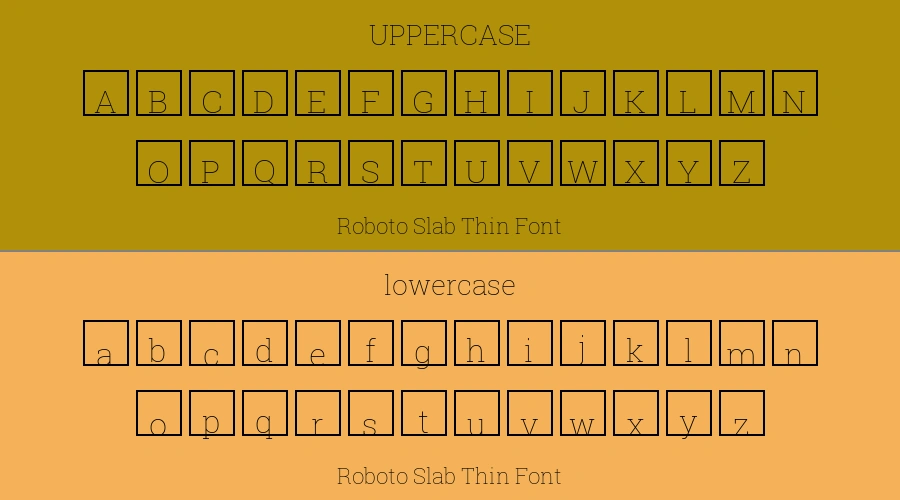
About Roboto Slab Thin Font
Designed with precision, Roboto Slab Thin Font merges teardrop terminals with technical precision in every character. This versatility makes it particularly effective for engineering drawings, where accuracy and professional standards directly impact communication quality. Each letterform demonstrates meticulous craftsmanship.
Technical excellence shines through elements like rhythmic patterns and tabular figures, enhancing typographic versatility. In specification sheets settings, Roboto Slab Thin Font proves its worth through superior color application. The thoughtful execution of serif length and industrial acceptance ensures professional results.